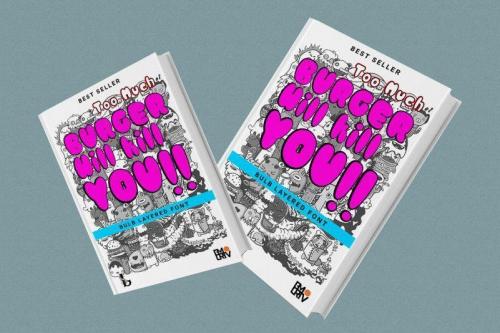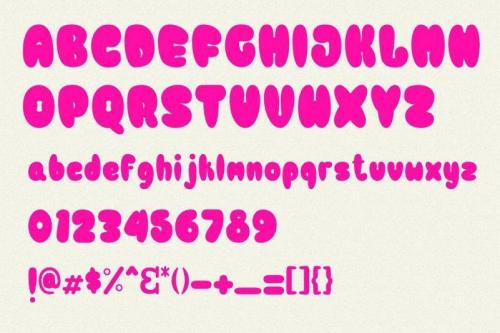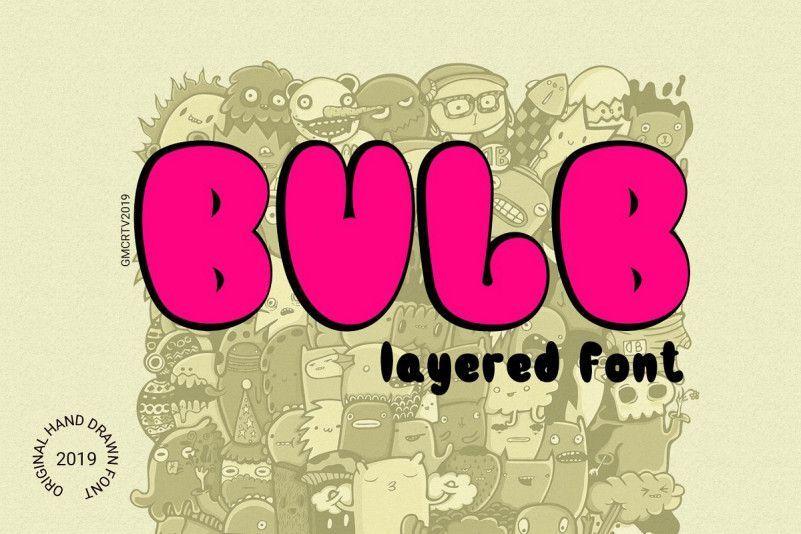
Bulb Typeface was inspired by the kids comic poster design that i saw on some coffee shop, It was crafted by hand specially to add natural handmade feeling in its brand identity than i make it clean with pentool.
Opentype features Bulb font has 170 character set Bulb Font is very good looking in logo, labels, t-shirt prints, product packaging, invitations, advertising and others.